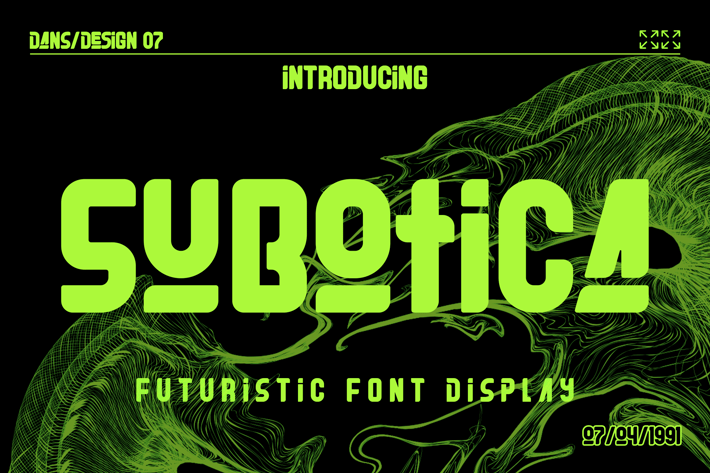
Subotica Futuristic Y2k Display Font
a distinct, highly detailed. GRAFFITI Display Font.
It would make a great choice for exquisite retro-urban designs, business branding, logos, Apparel designs, and more.